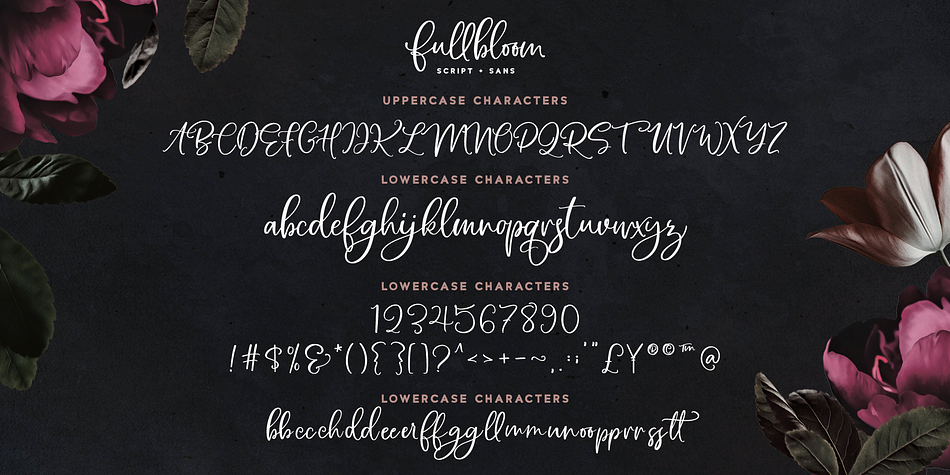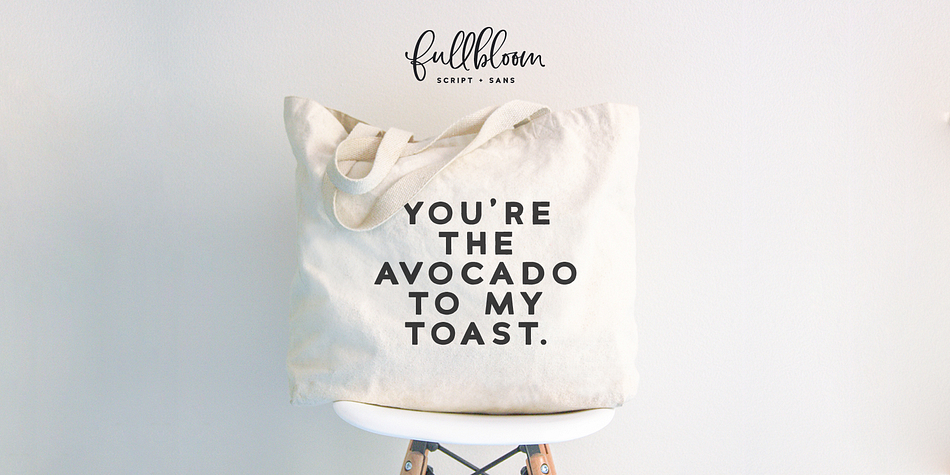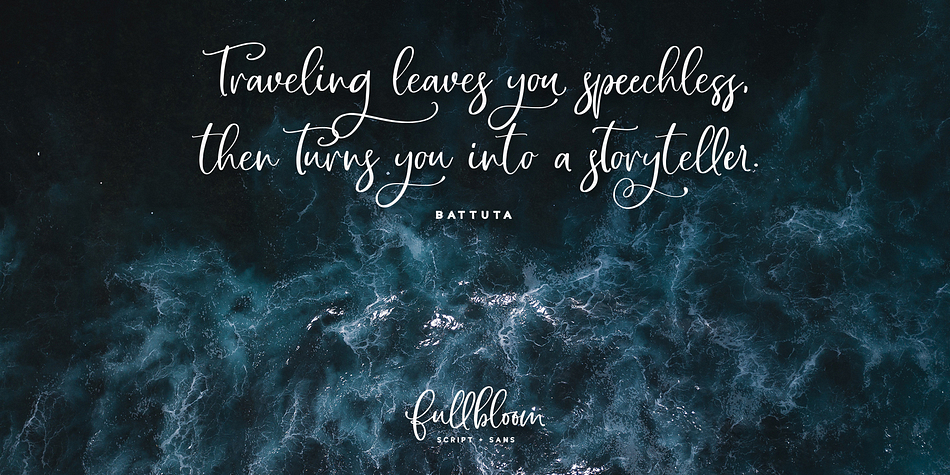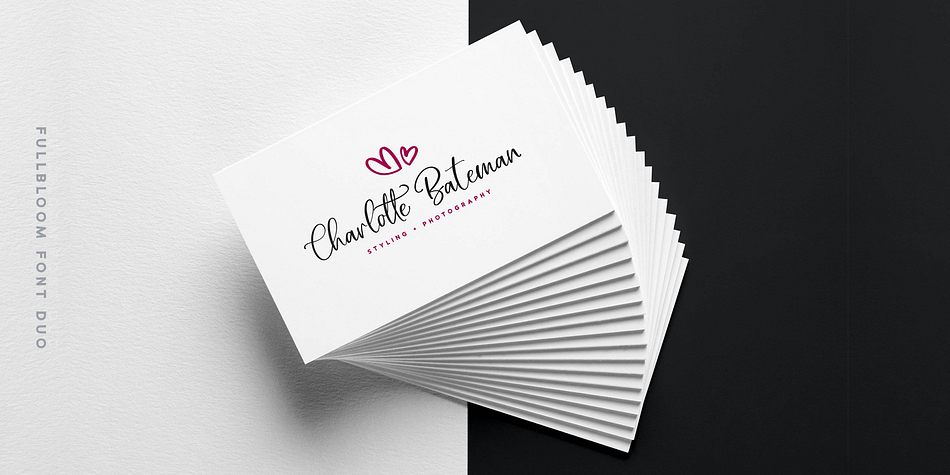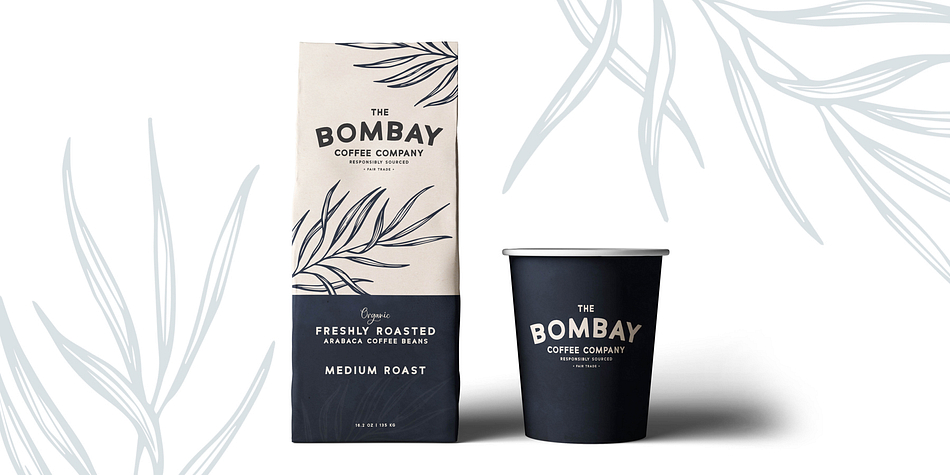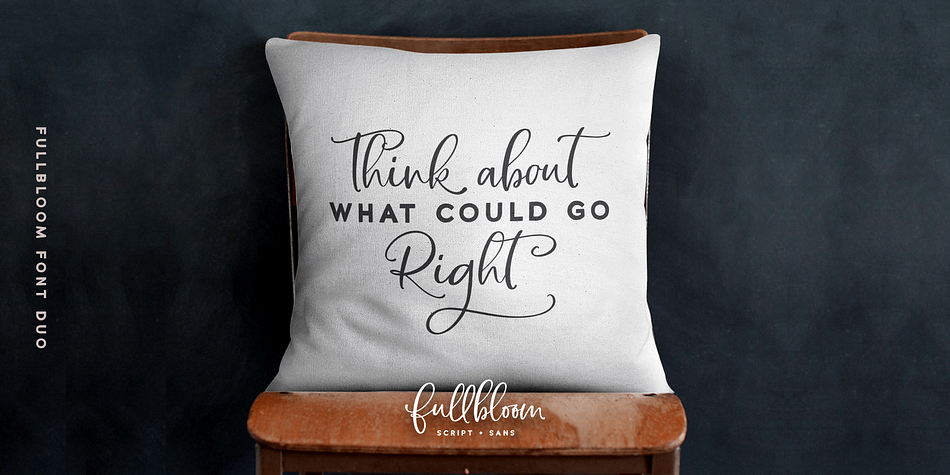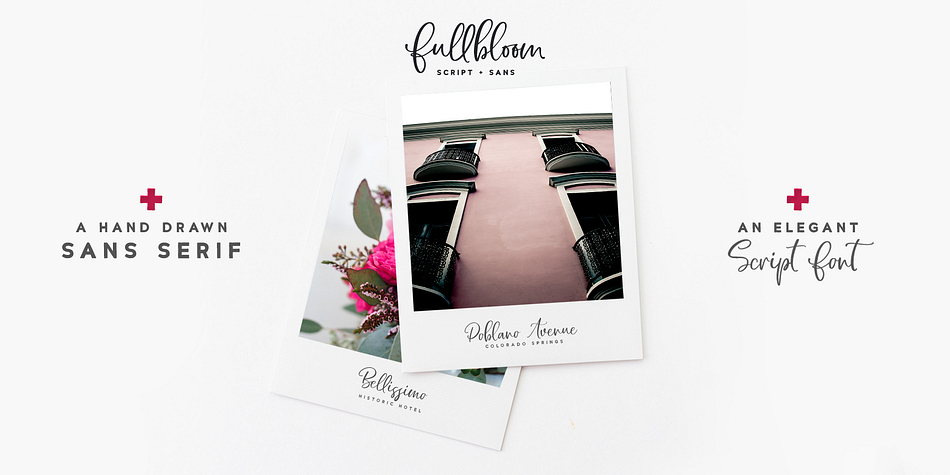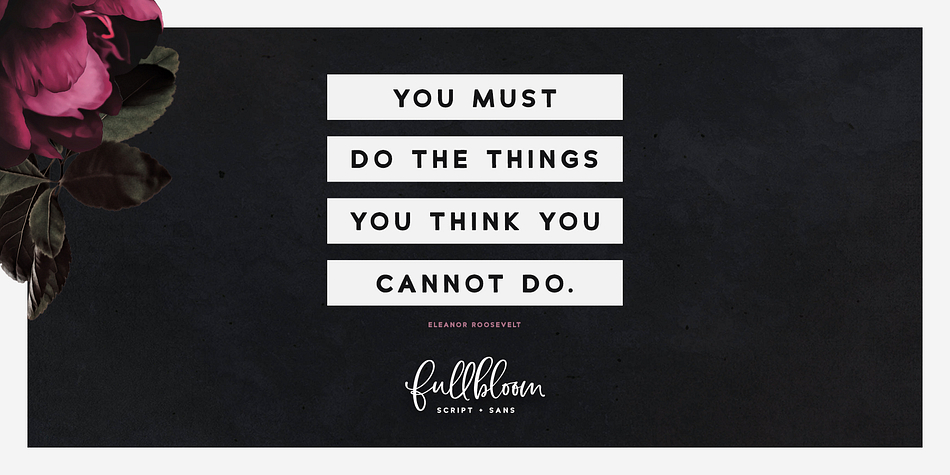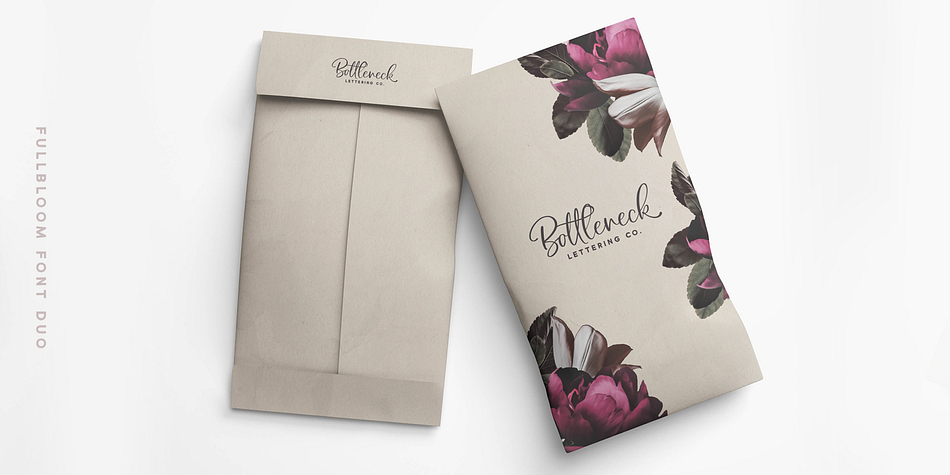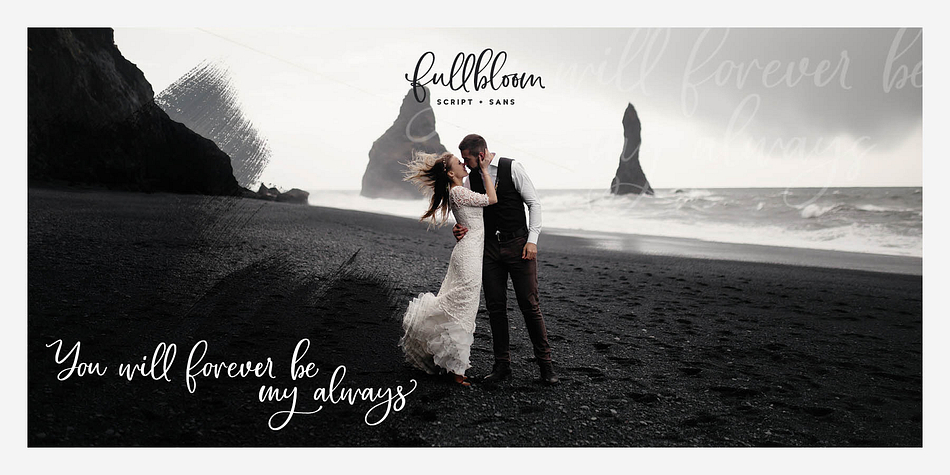
Designed by Callie Hegstrom, Fullbloom Font Duo is a multiple classification font family. This typeface has three styles and was published by MakeMediaCo.
Introducing Fullbloom Font Duo A smooth, charming, perfectly paired font duo, (based off my own handwriting), that’s ideal for quotes, social media, branding, packaging, overlays and more! Use this elegant combo on everything from logo design to Instagram quotes. ????
1. Fullbloom Script - A sweet, handwritten script with language support and 48 alternates (OTF & TTF).
2. Fullbloom Italic - An italic version with an 8 degree slant, to add a touch of elegance to your work (OTF & TTF).
3. Fullbloom Sans - A perfectly paired, handwritten sans serif to go with just about every script. Use this typeface with Fullbloom or any font that might need a straightforward font paring. (OTF & TTF). I get so many questions about good font parings, that I decided to make my own all-purpose Sans Serif.